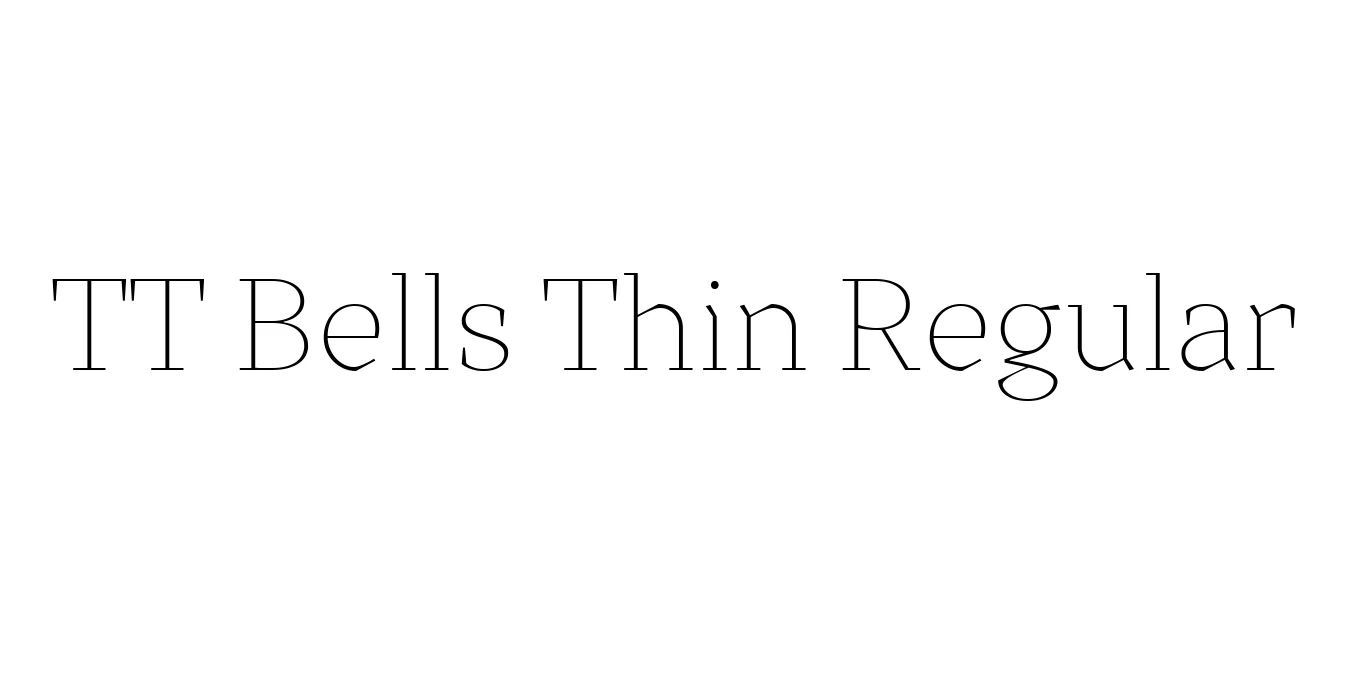
TT Bells Thin Regular
Designed by Ivan Gladkikh, TypeType
TT Bells Thin Regular was developed by the TypeType design team as a modern and refined interpretation of classical old-style serifs. This typeface bridges the gap between historical calligraphic elegance and contemporary digital precision. The Thin weight is particularly notable for its delicate, high-contrast strokes and razor-sharp terminals, which evoke a sense of high-end sophistication and literary grace.
The font's name is derived from the subtle bell-like flares found at the ends of its characters, providing a rhythmic visual flow. TT Bells is engineered for maximum impact in display settings, making it a favorite among designers working in the luxury, fashion, and editorial sectors. Its intricate details and wide proportions ensure that it remains legible while exuding an air of timeless luxury.
TT Bells Thin Regular Best Uses
Superior for magazine headlines and sophisticated layout covers.
Perfect for creating high-end visual identities and logo marks.
Well-suited for lookbooks and upscale promotional materials.
Adds a layer of class to lifestyle blogs and premium websites.